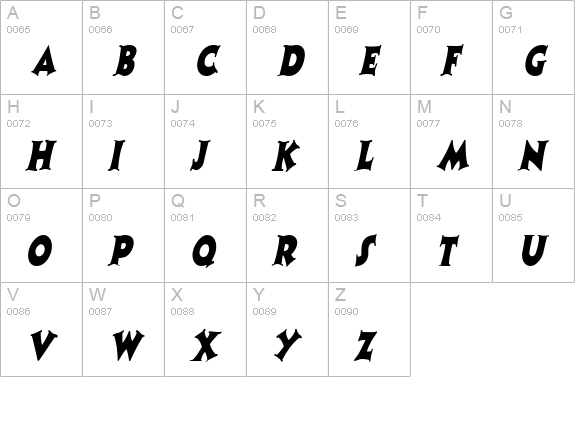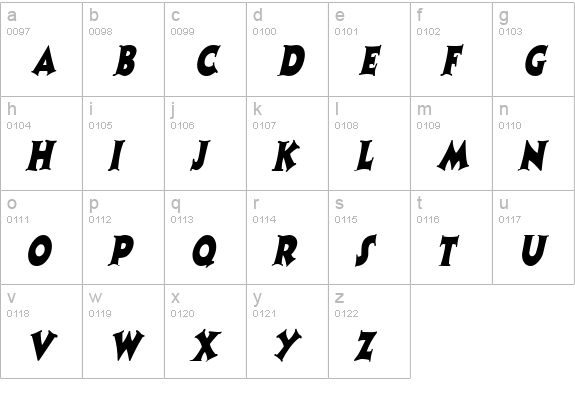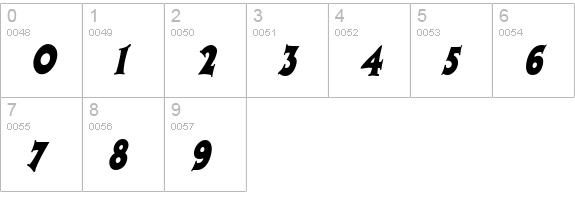
CoasterNarrow Italic Font Details
CoasterNarrow Italic is a distinctive, italic variant in the CoasterNarrow typeface family \xE2\x80\x94 well suited to design and typography projects.
CoasterNarrow Italic is a sleek and modern font that exudes sophistication and elegance. Its slanted and narrow design adds a touch of flair to any project, making it perfect for titles, headers, and branding materials. The italicized characters give a sense of movement and energy, making your text stand out in a stylish way. This font is not only visually appealing but also versatile, suitable for a wide range of design projects. Whether you're creating a sleek website, designing a chic invitation, or crafting a professional presentation, CoasterNarrow Italic will add a touch of class to your work. The best part? CoasterNarrow Italic is completely free to download at FontsMarket.com. So go ahead and elevate your designs with this stunning font without breaking the bank. Download it today and start adding a touch of sophistication to your projects!